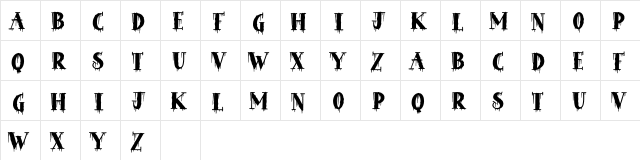
Crimes of the Times Regular
Foundry: JSH creates
Designer: Jonathan S. Harris
Design Context for Crimes of the Times
Crimes of the Times is a composed and adaptable typeface that performs quietly and consistently across a wide range of design contexts.